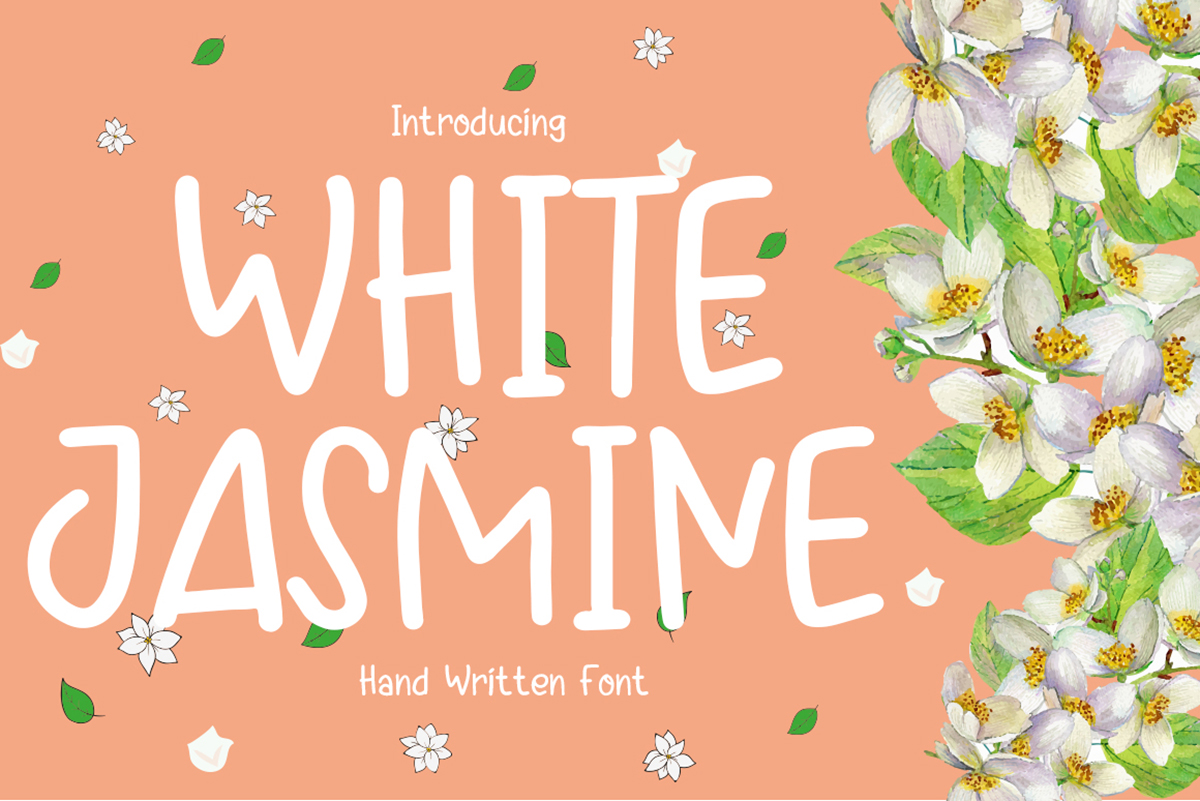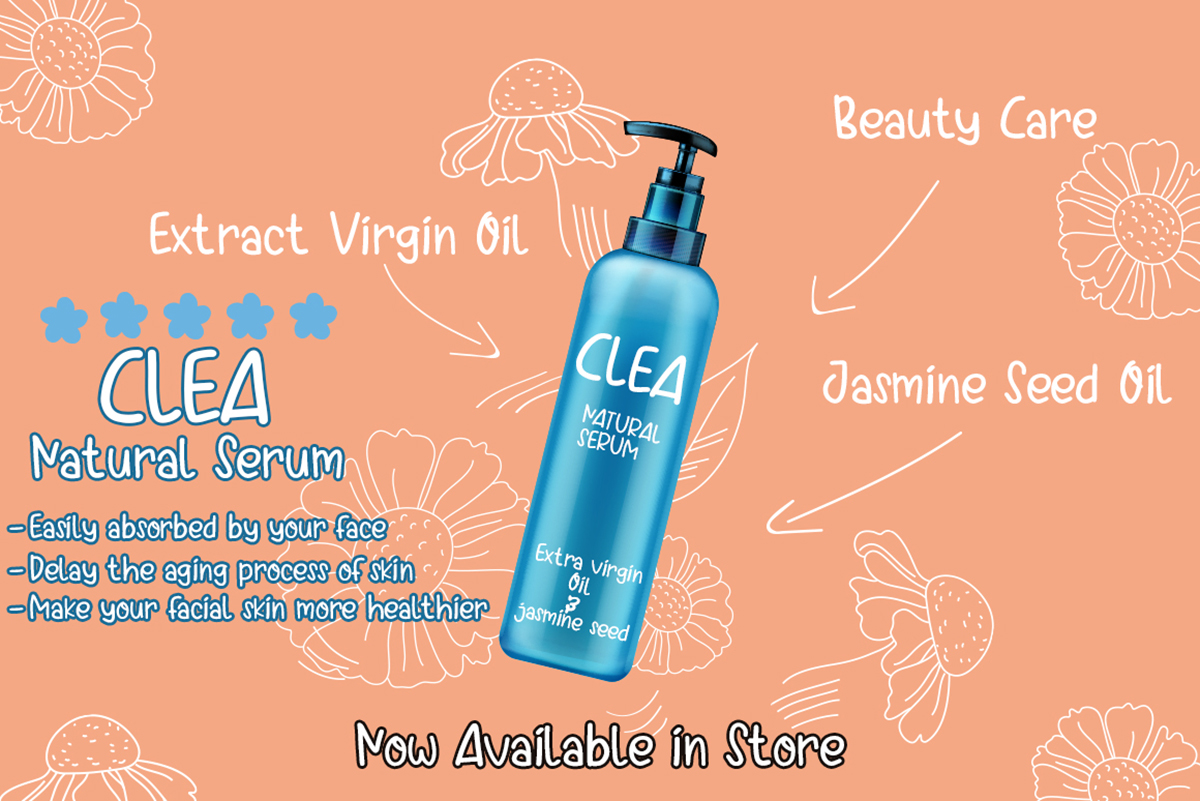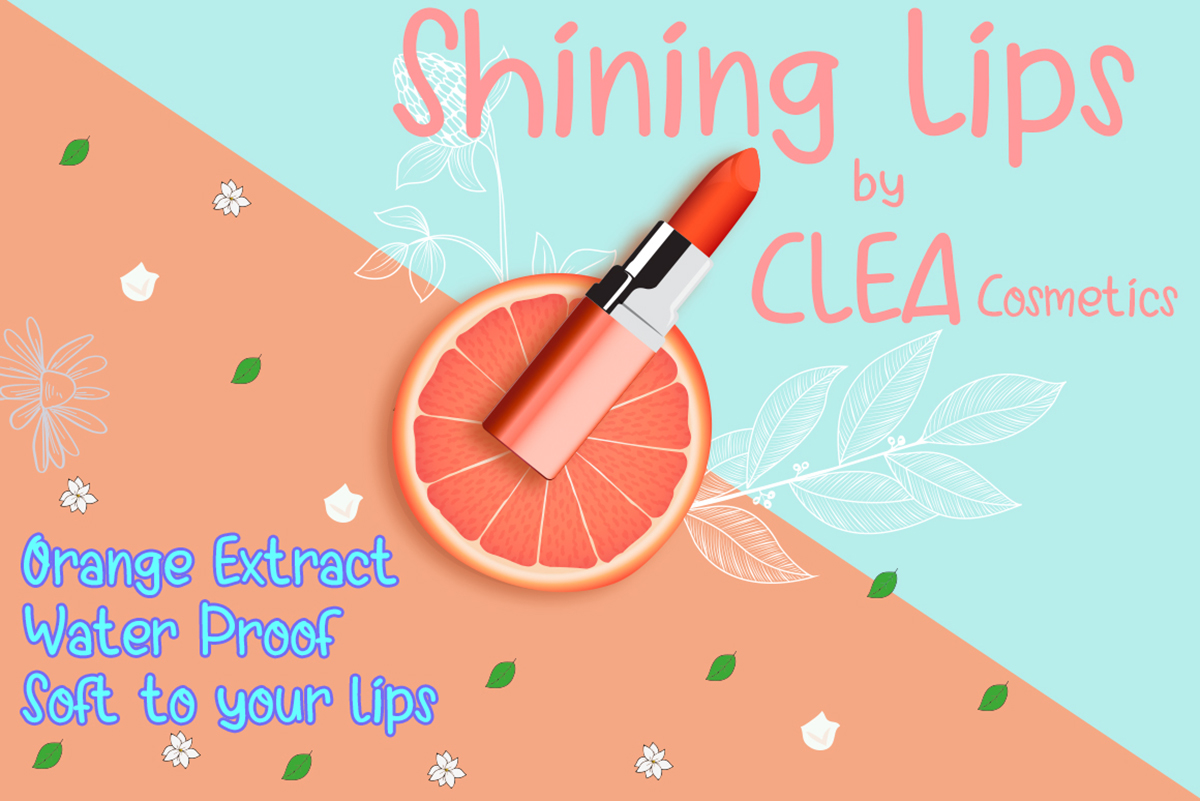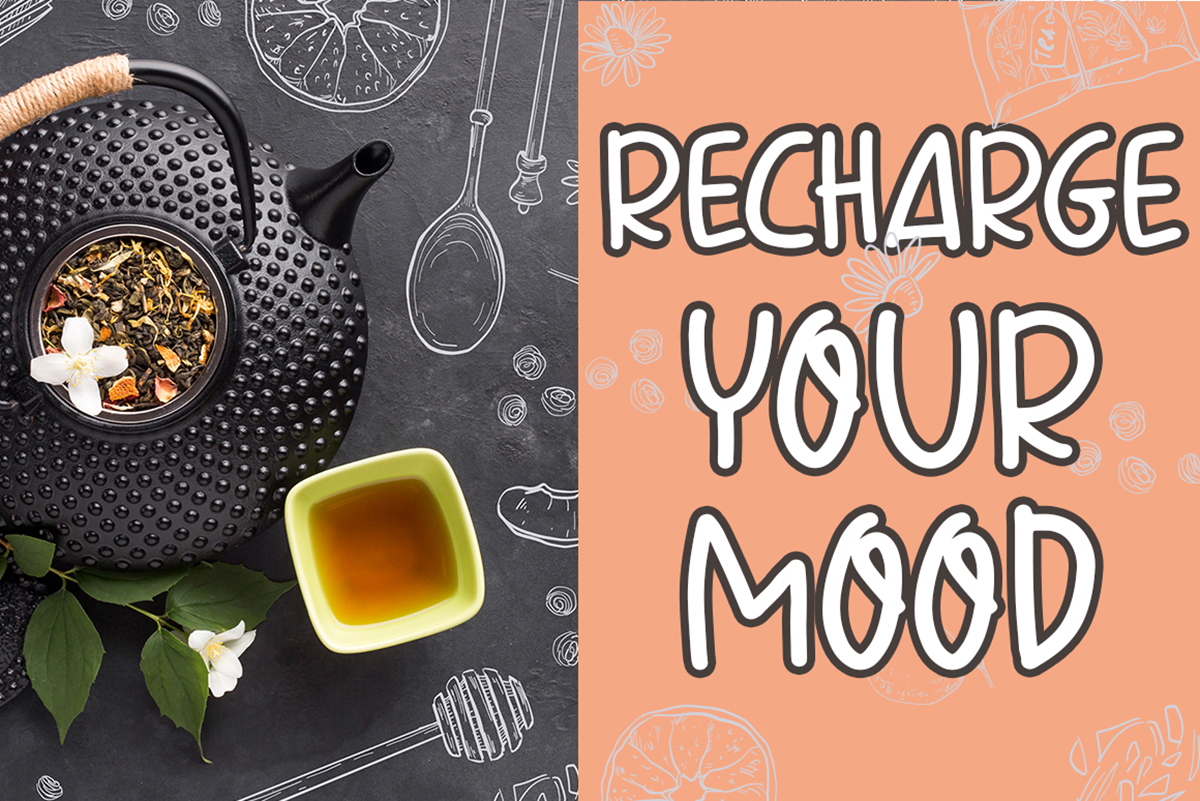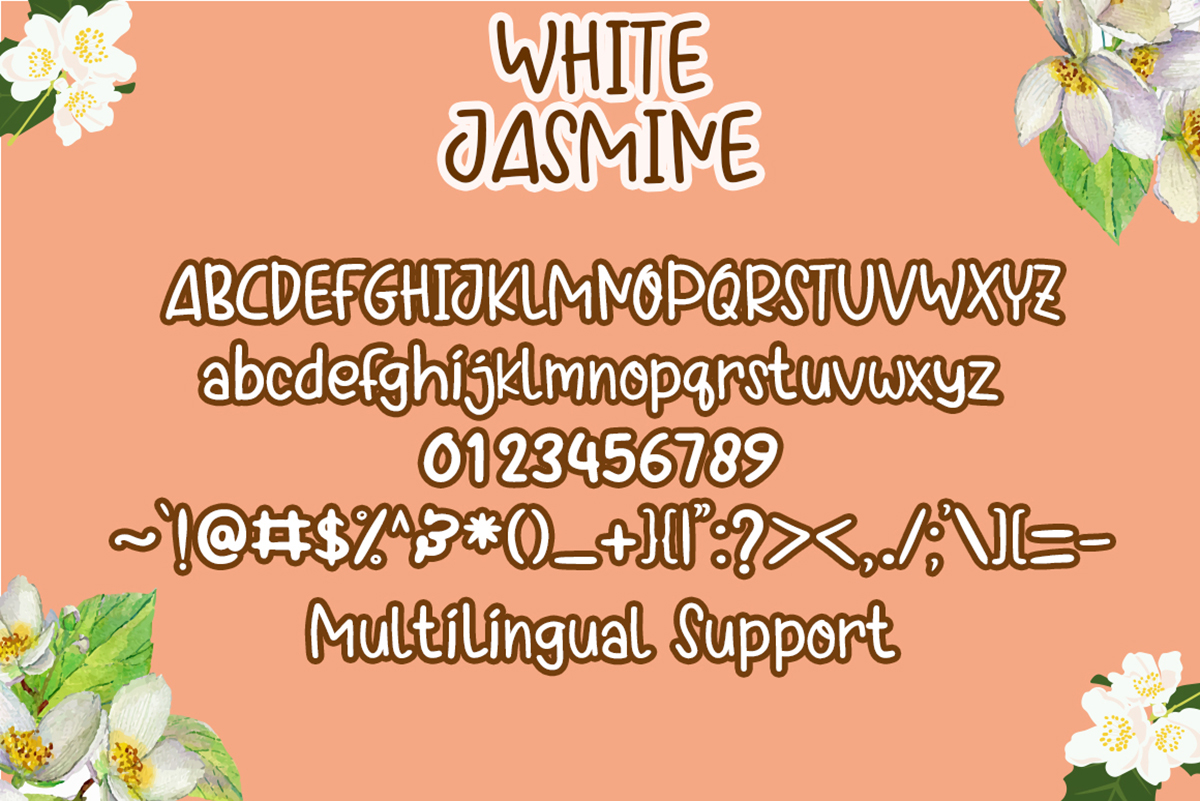
White Jasmine Free Font
White Jasmine Free Font is a sweet and friendly handwritten font. Its natural and unique style makes it incredibly fitting to a large pool of designs. This free typeface was designed by the talented Booga Letter Studio. If you like it don’t forget to check out the full version.